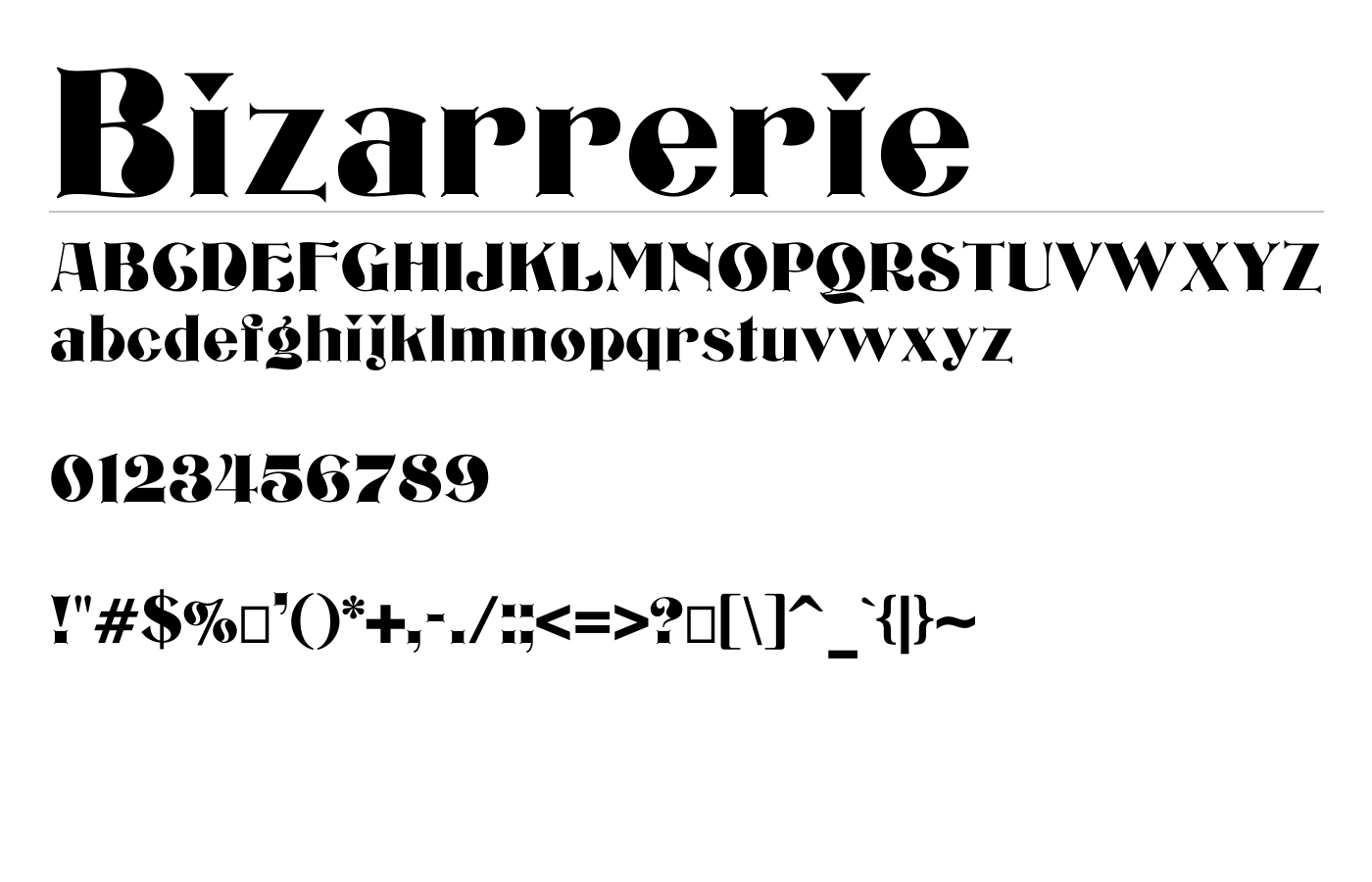
Bizarrerie is a bold, high-contrast serif font with striking, exaggerated stroke contrasts and sharp, angular serif details that give it a dramatic and distinctive look. Its unique letterforms feature single-story shapes and decorative accents, making it perfect for eye-catching headlines, luxury branding, or editorial designs that seek a vintage yet avant-garde flair. This font stands out where a strong, artistic statement is needed, blending elegance with an unconventional, artistic edge.
Bizarrerie Font
About Bizarrerie Font